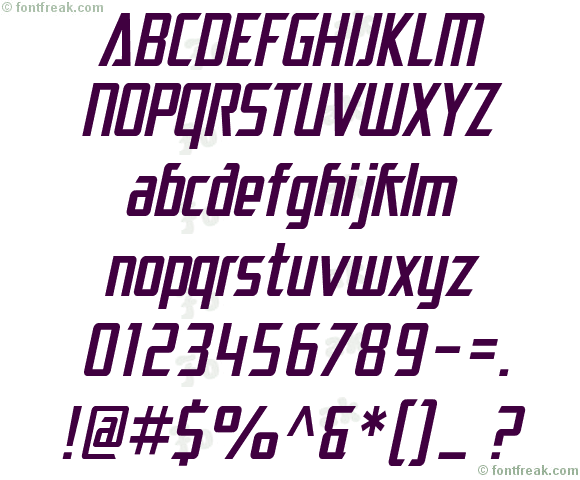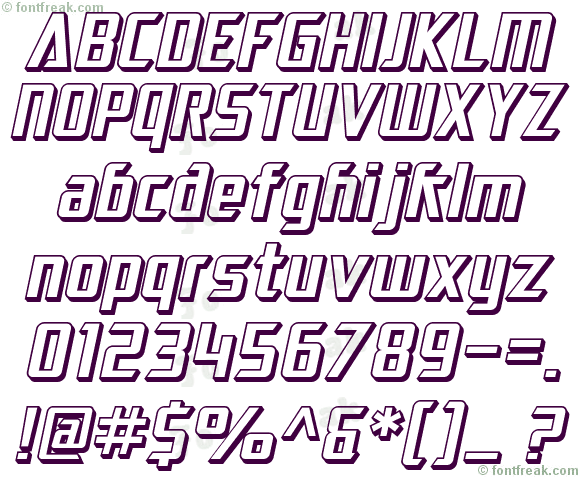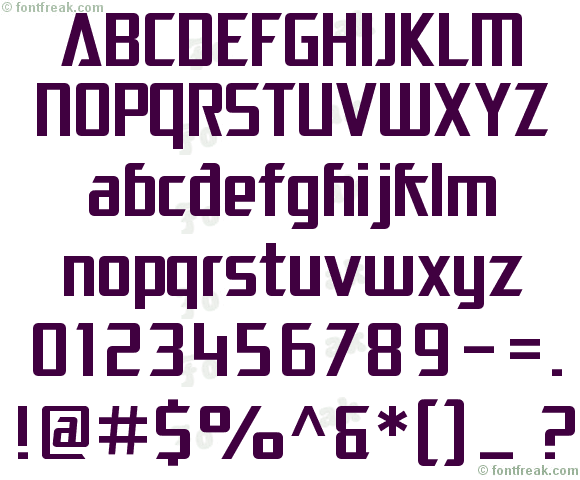
About Electrotome
Electrotome is a striking display font designed by Shyfonts Type Foundry, categorized as a bold, condensed typeface that captures attention with its unique visual flair. This freeware font showcases shaded, oblique characteristics, giving it a dynamic and modern aesthetic. The stroke weight is substantial, providing a strong presence that stands out in various applications. The contrast between the thick and thin elements enhances its readability while also adding a stylish touch. Its compact spacing allows for effective use in both headlines and body text, making it versatile across different media.
Ideal for various creative projects, Electrotome is particularly suited for use cases such as movie posters, where its boldness can convey dramatic themes. It also works well for event flyers, offering an energetic vibe that captures the essence of the occasion. Restaurant menus can benefit from this font, as its unique style can enhance the dining experience, making it memorable for patrons. Additionally, graphic designers will find Electrotome an excellent choice for branding materials, helping small business owners create distinct visual identities. Content creators can leverage this font for social media graphics, ensuring their posts stand out in crowded feeds.
The target audience for Electrotome includes graphic designers, small business owners, and content creators who seek to make a strong visual impact with their work. Its combination of boldness and style allows users to communicate their message effectively while maintaining an eye-catching design.
What makes Electrotome truly stand out is its ability to blend modern aesthetics with practicality. Its unique traits not only draw the viewer's attention but also provide versatility for various design needs. For those seeking a distinctive and reliable typeface, the Electrotome font free download offers an excellent opportunity to elevate any creative project.